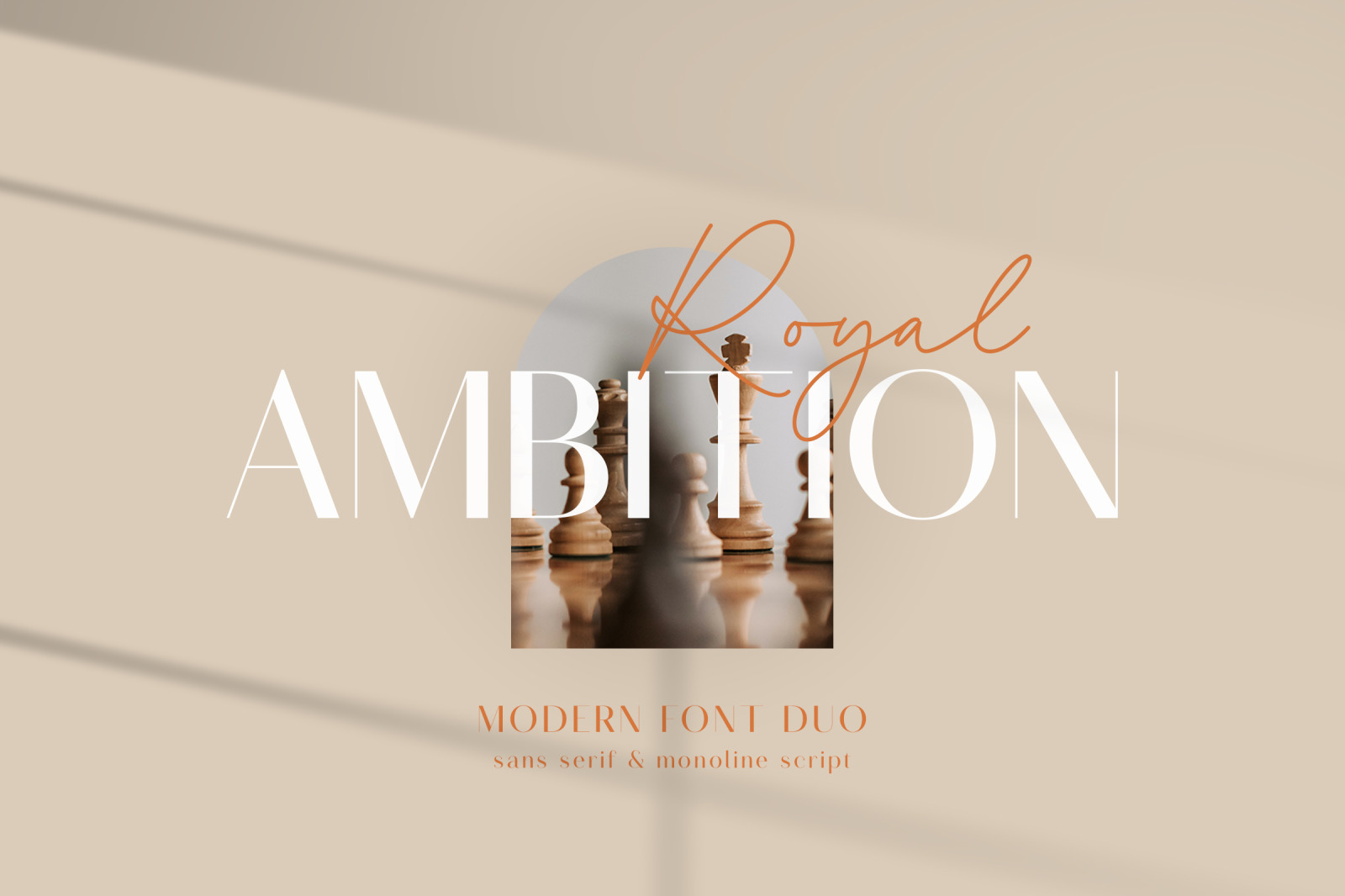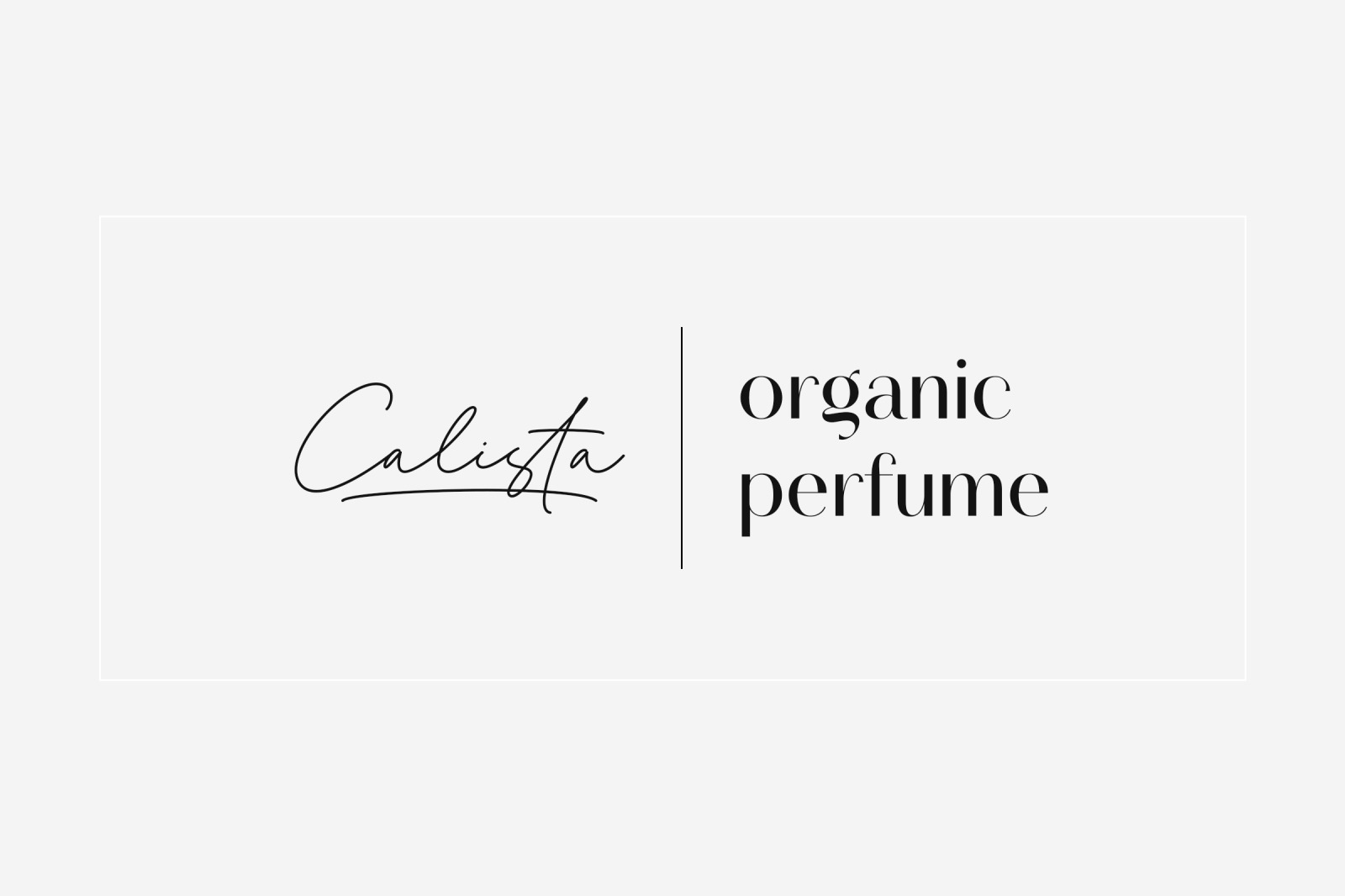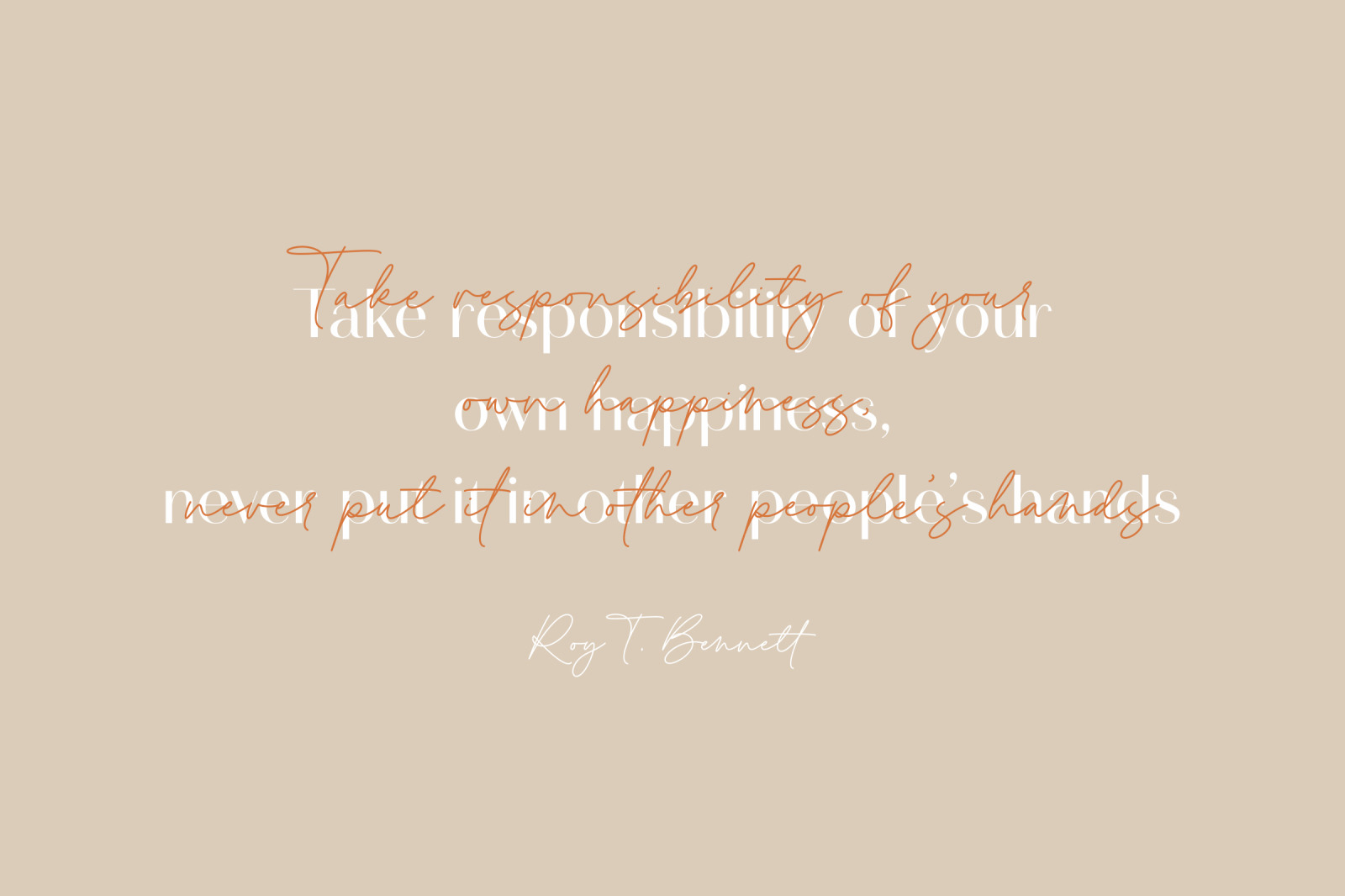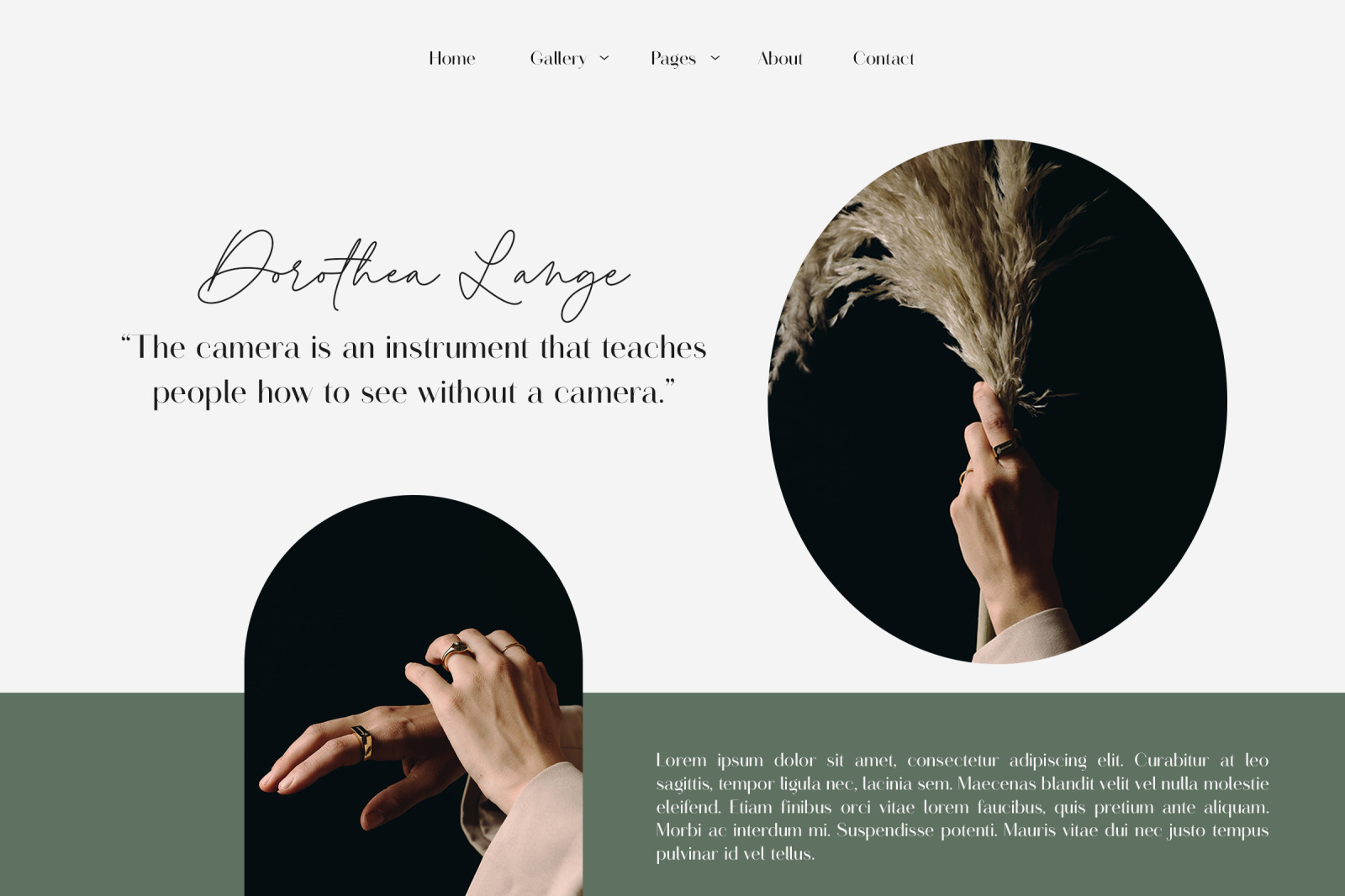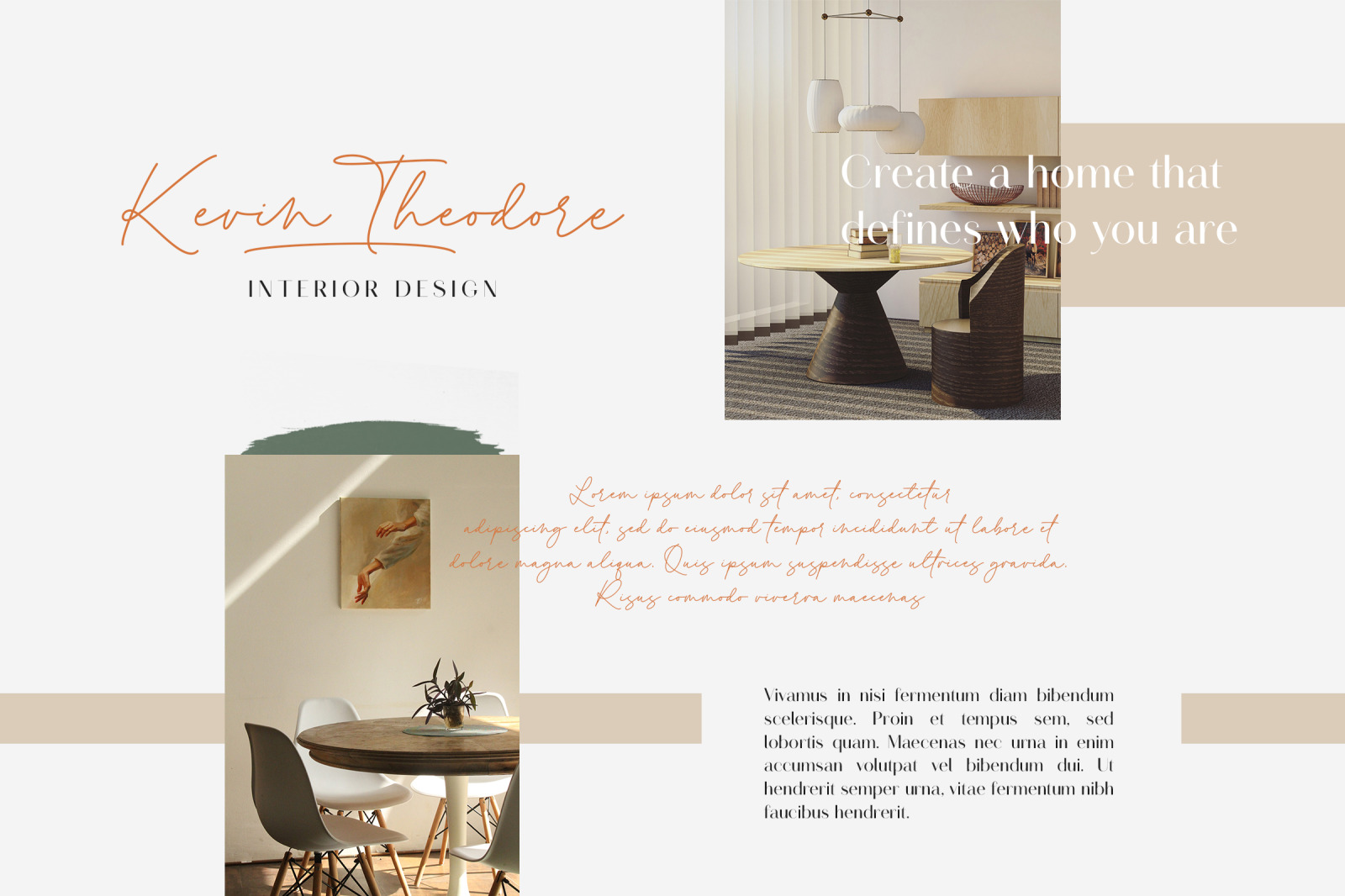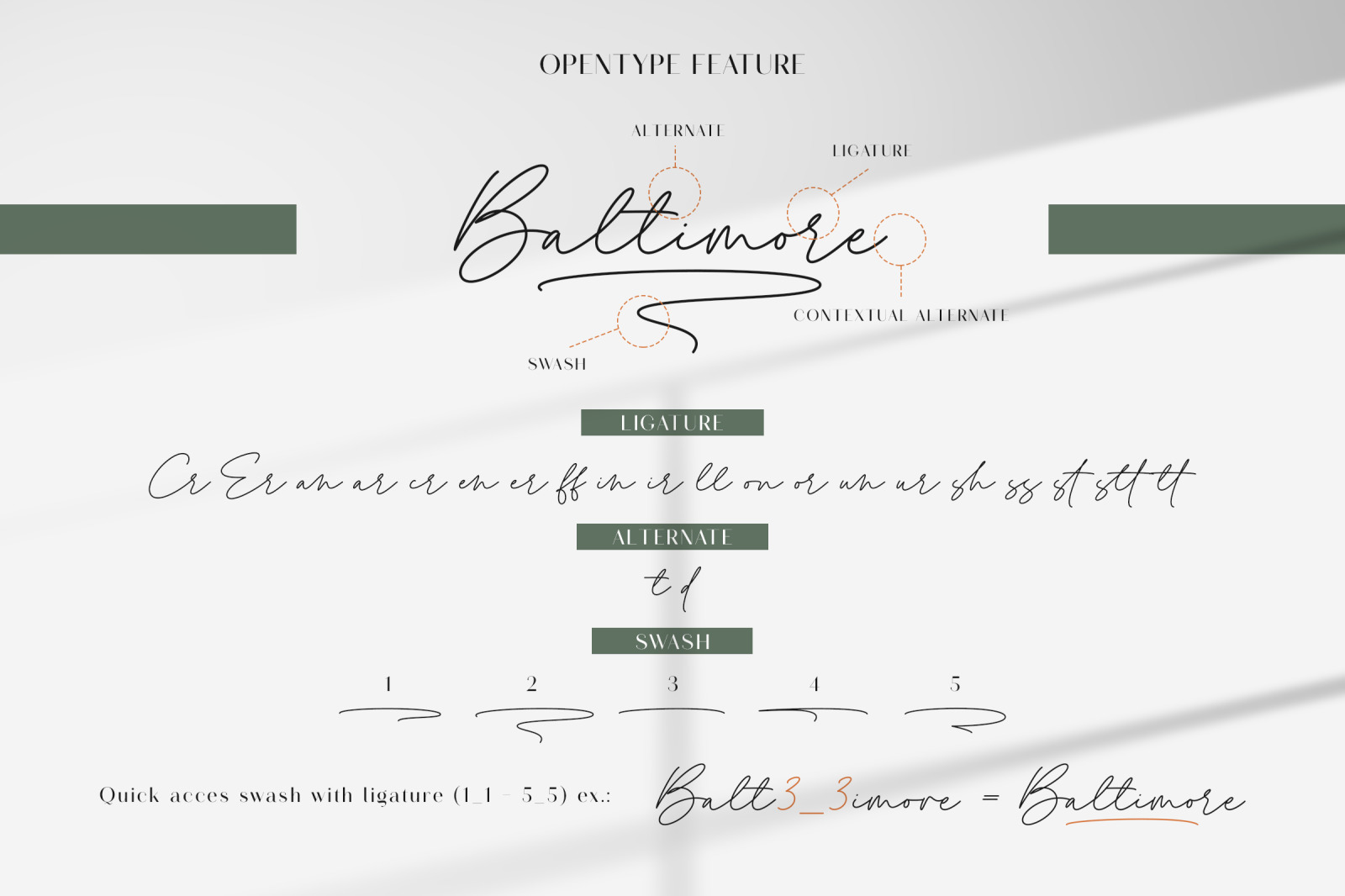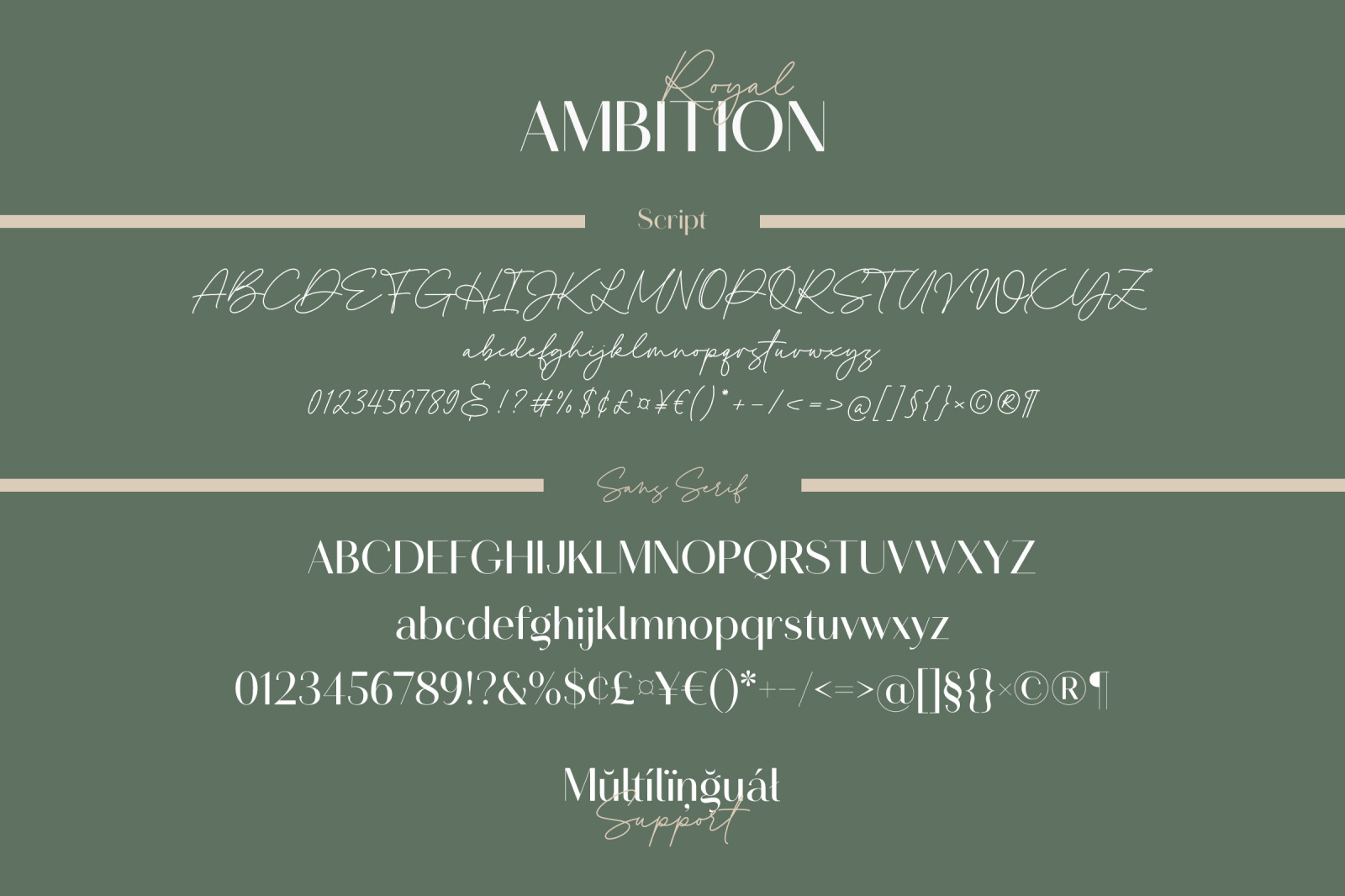
Royal Ambition - Font Duo
Royal Ambition is a perfect mix modern script and sans serif font. Together or apart, these fonts are ideal for adding a chic and cheery touch to your crafts. It was created to help you designing makes gorgeous logos, posters, wedding invitations, blog posts, social media, and more!
FEATURES
-Sans & Script
-Ligature
-Contextual Alternates
-Swash
-Alternate
-Uppercase and Lowercase letters
-Numbering and Punctuations
-Also Multilingual Support